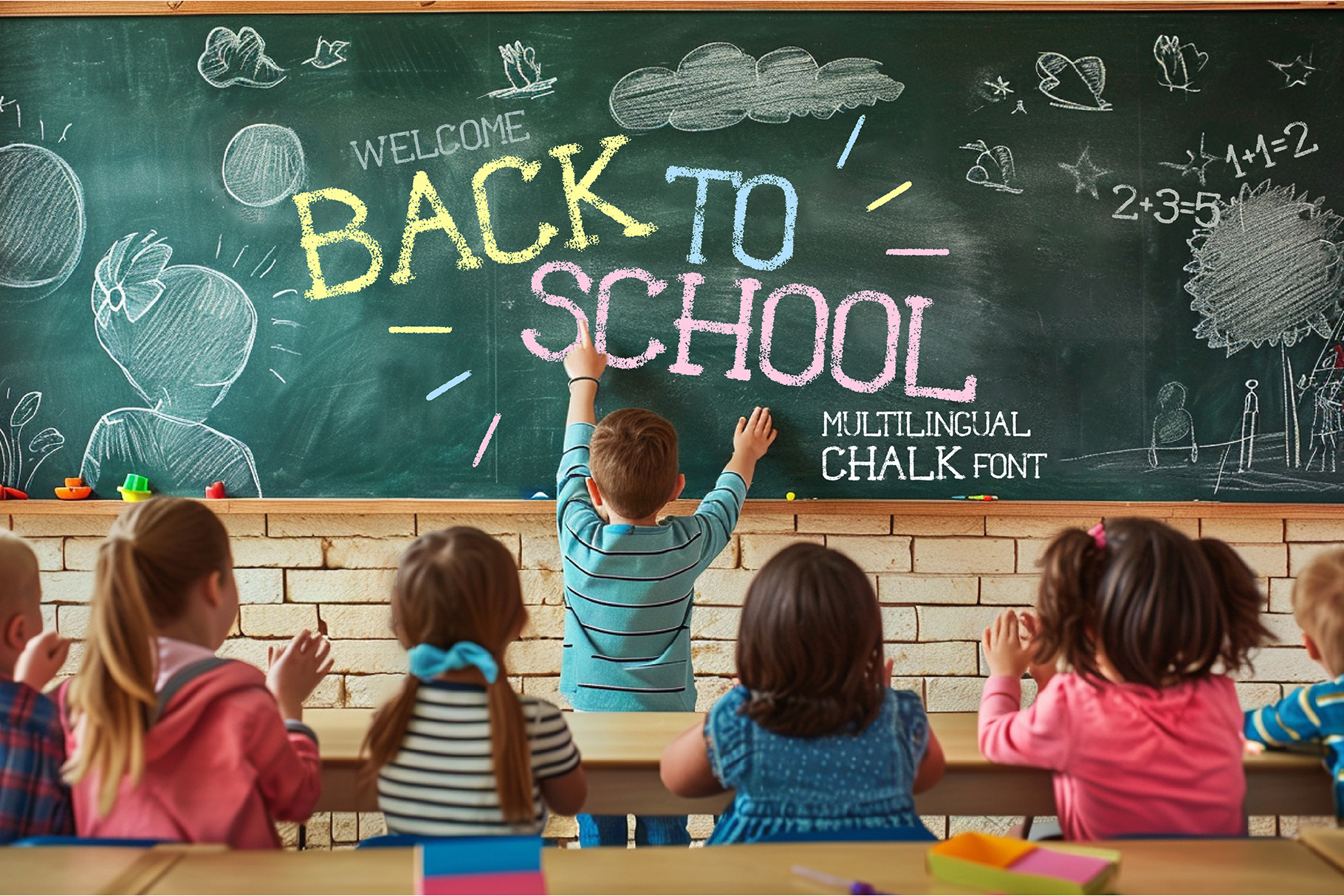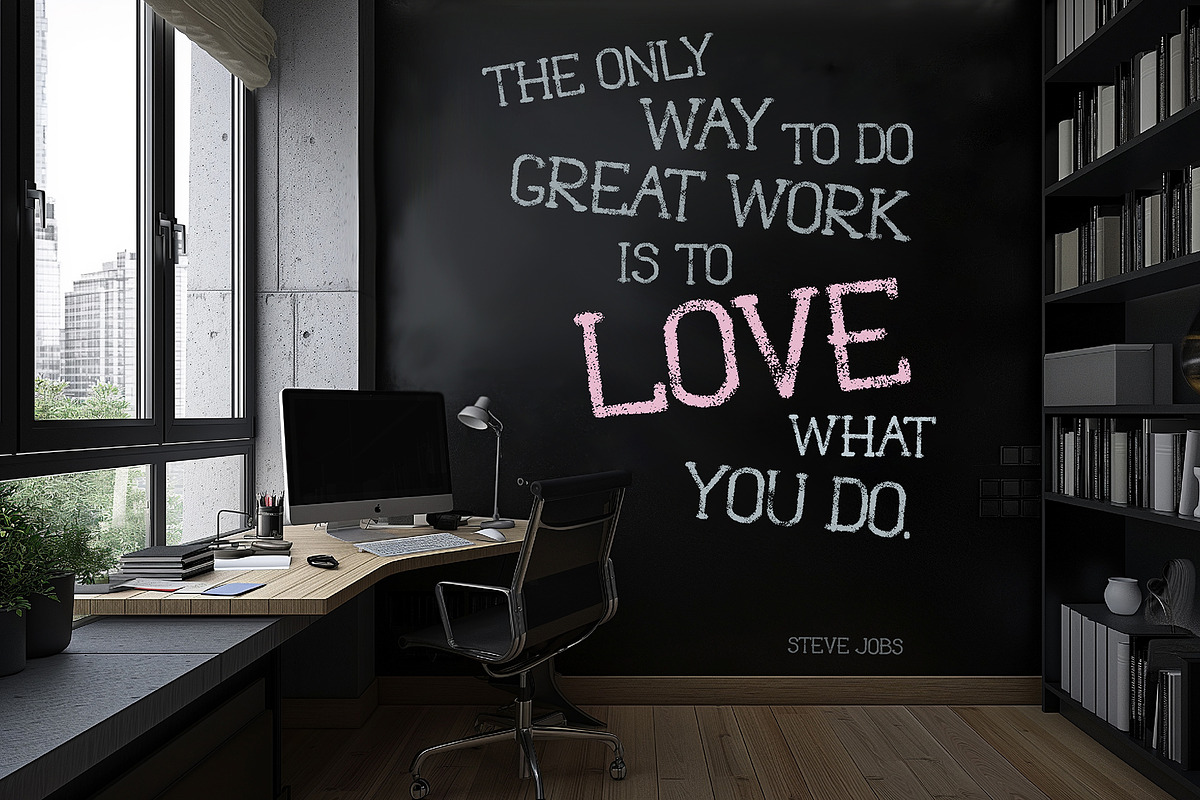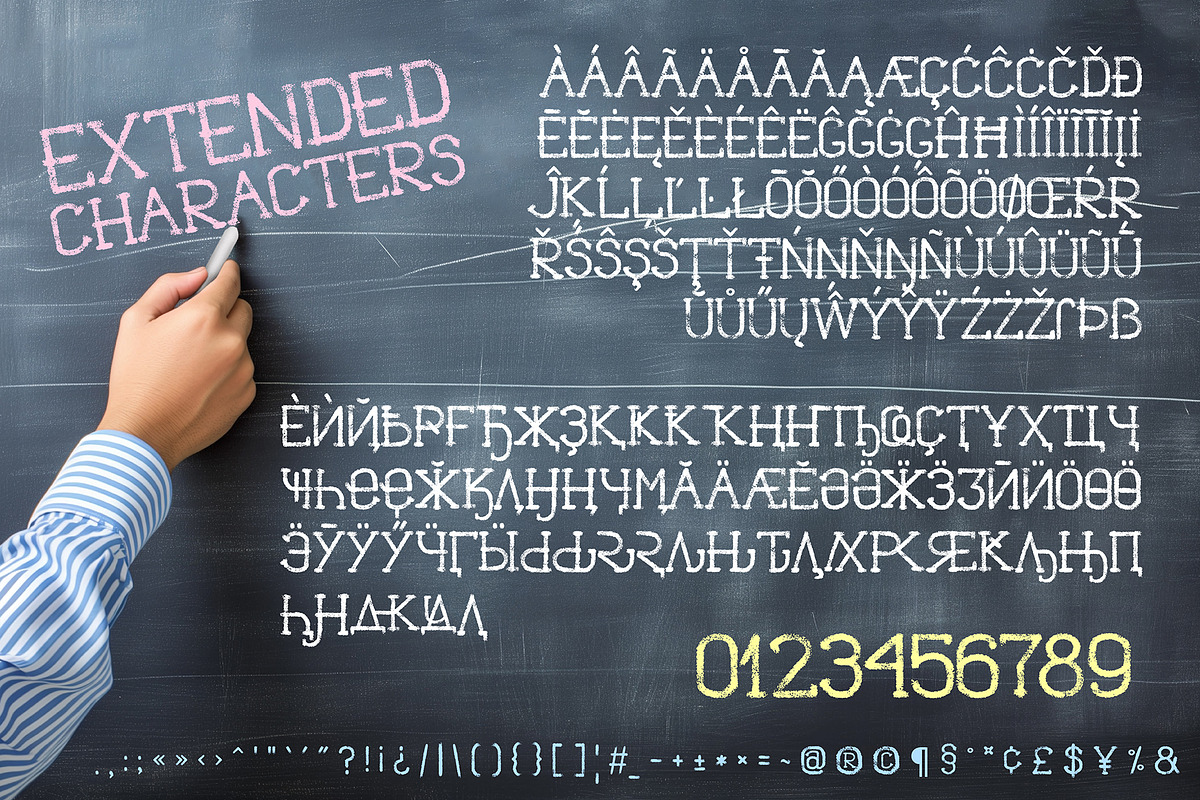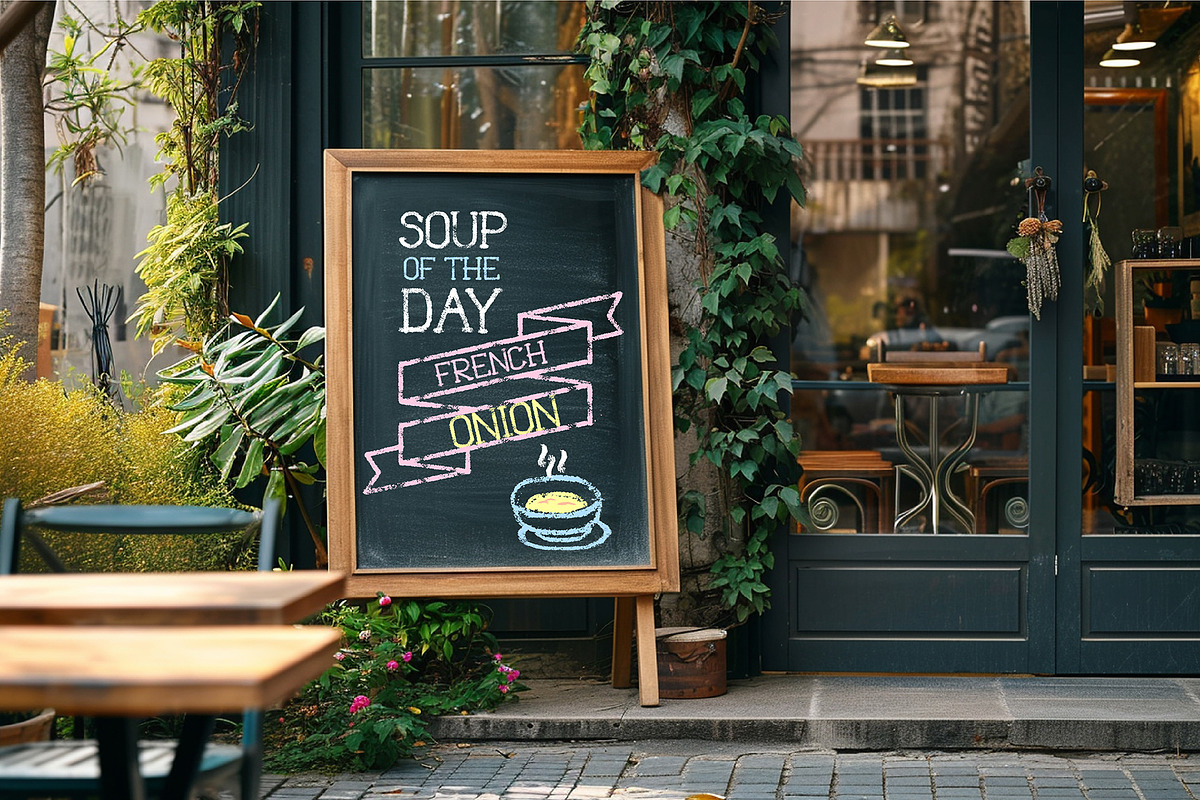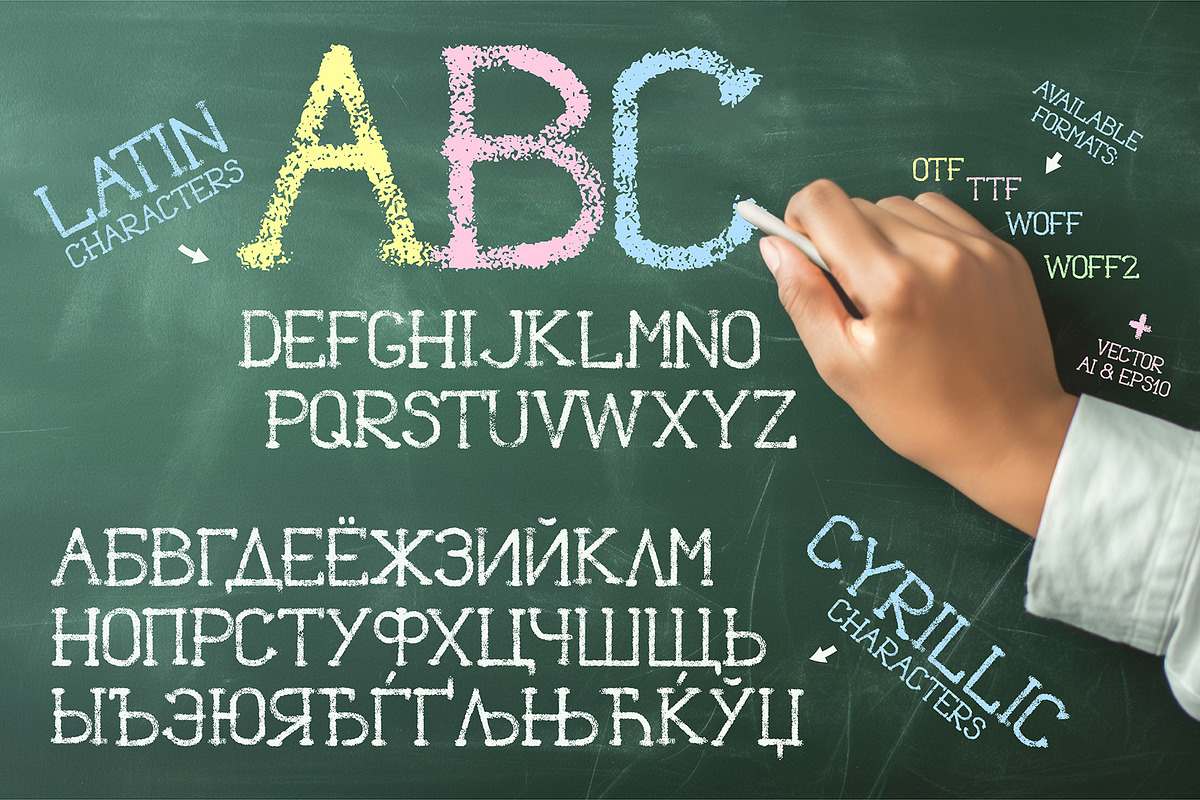
Multilingual Chalk font
Hand-drawn CHALK font with highly detailed texture. Perfect for kids- or school-related themes, restaurant menus, wall inscriptions, etc.
Font features:
- support of EXTENDED LATIN and CYRILLIC characters (please, check your text in the box above to see if your language is available.)
- UPPERCASE characters only (it means that Lowercase characters look the same as Uppercase)